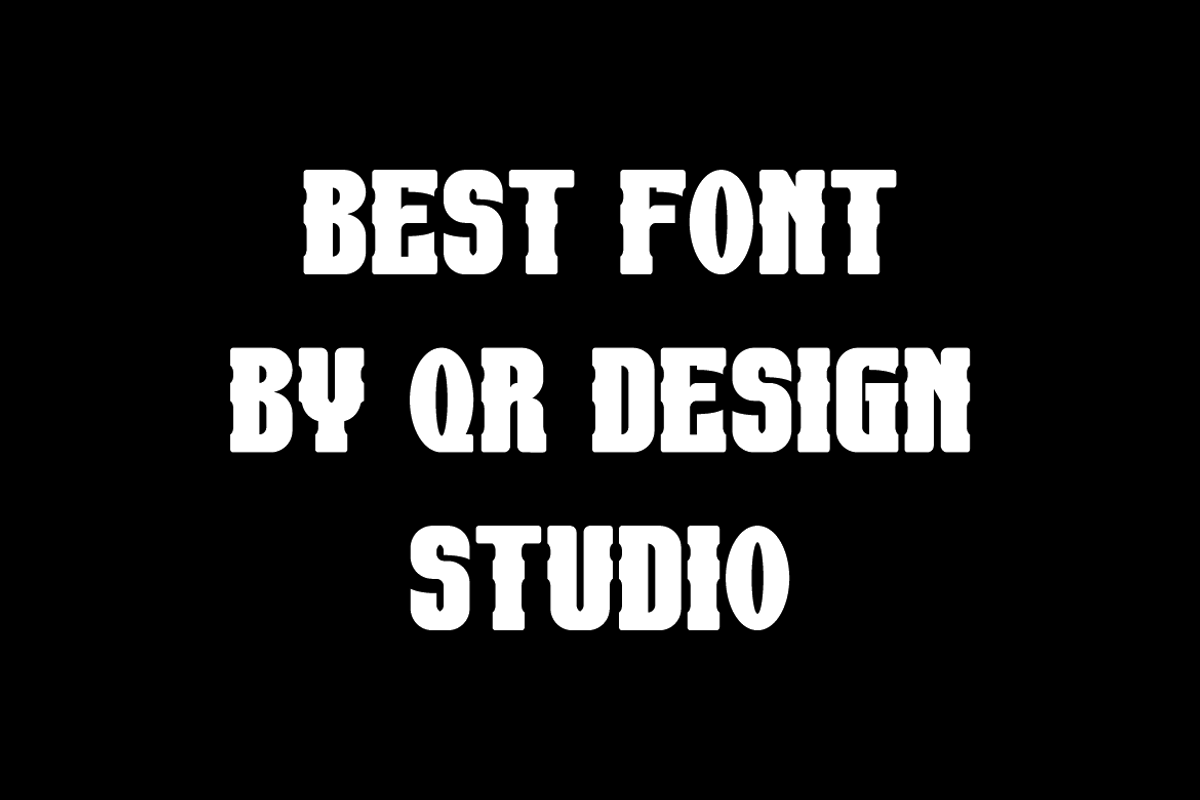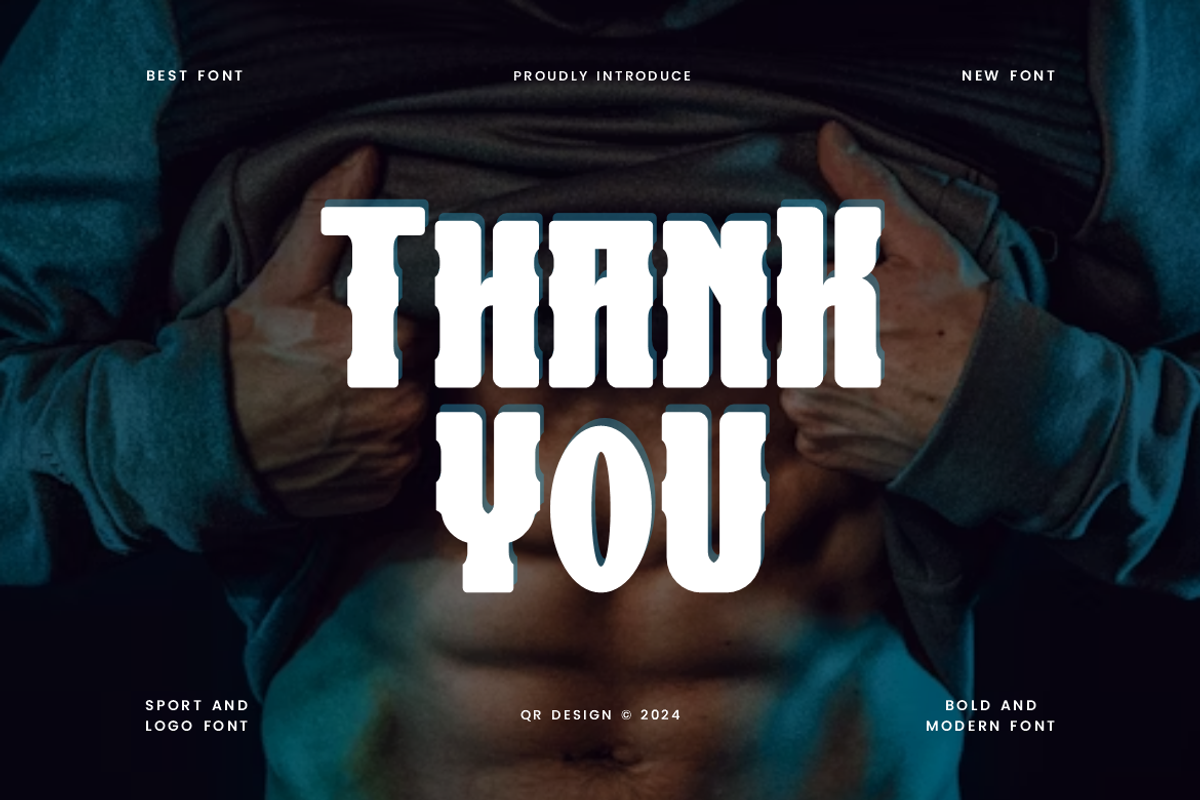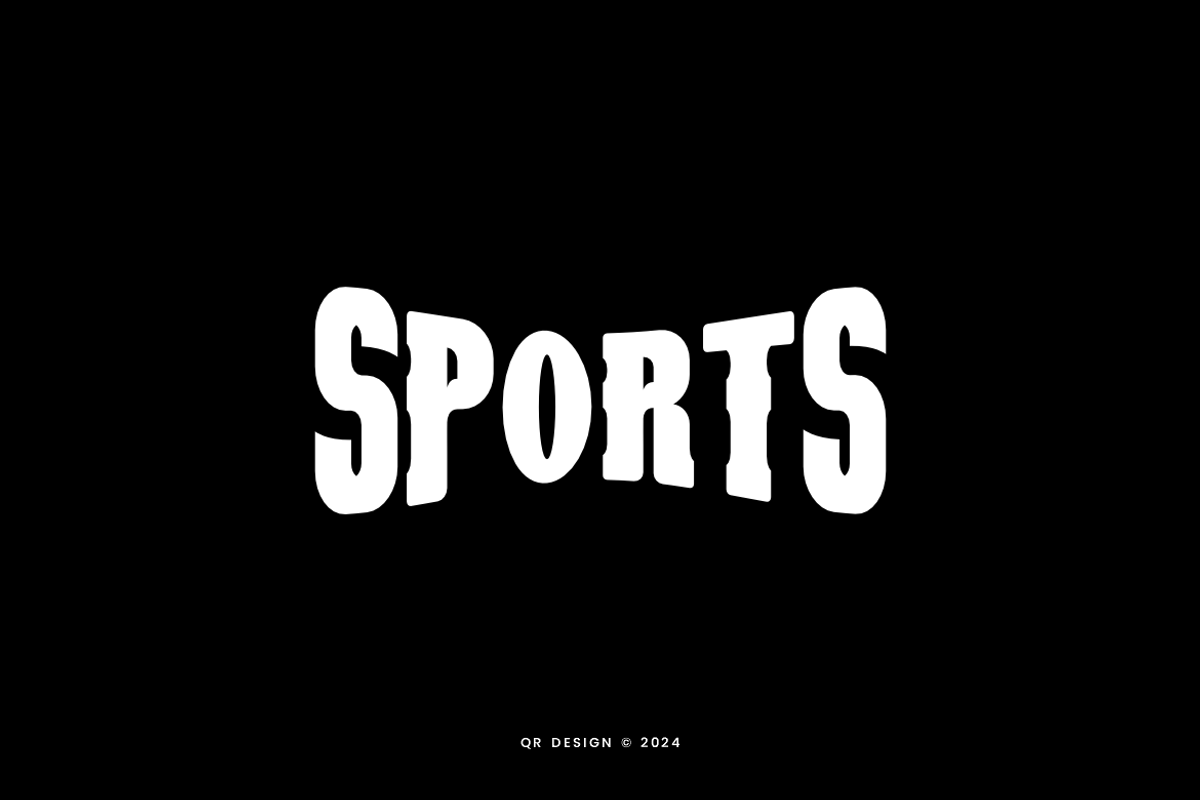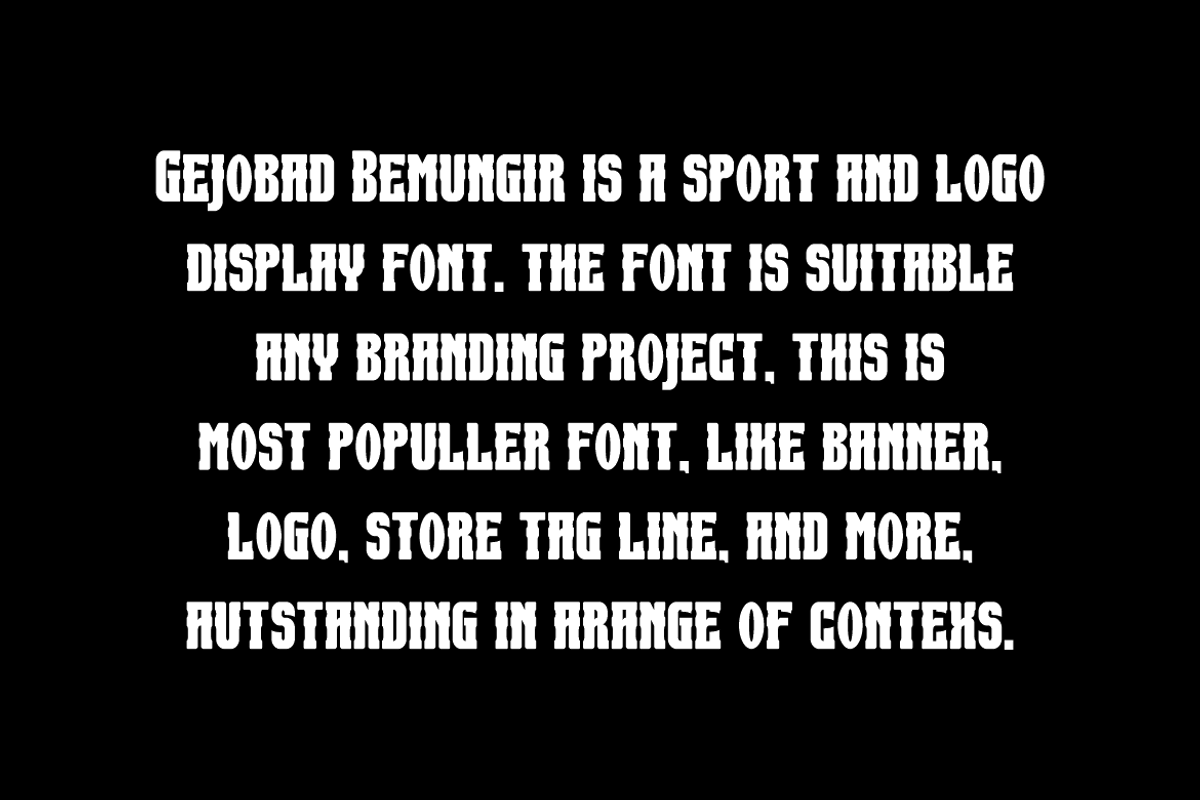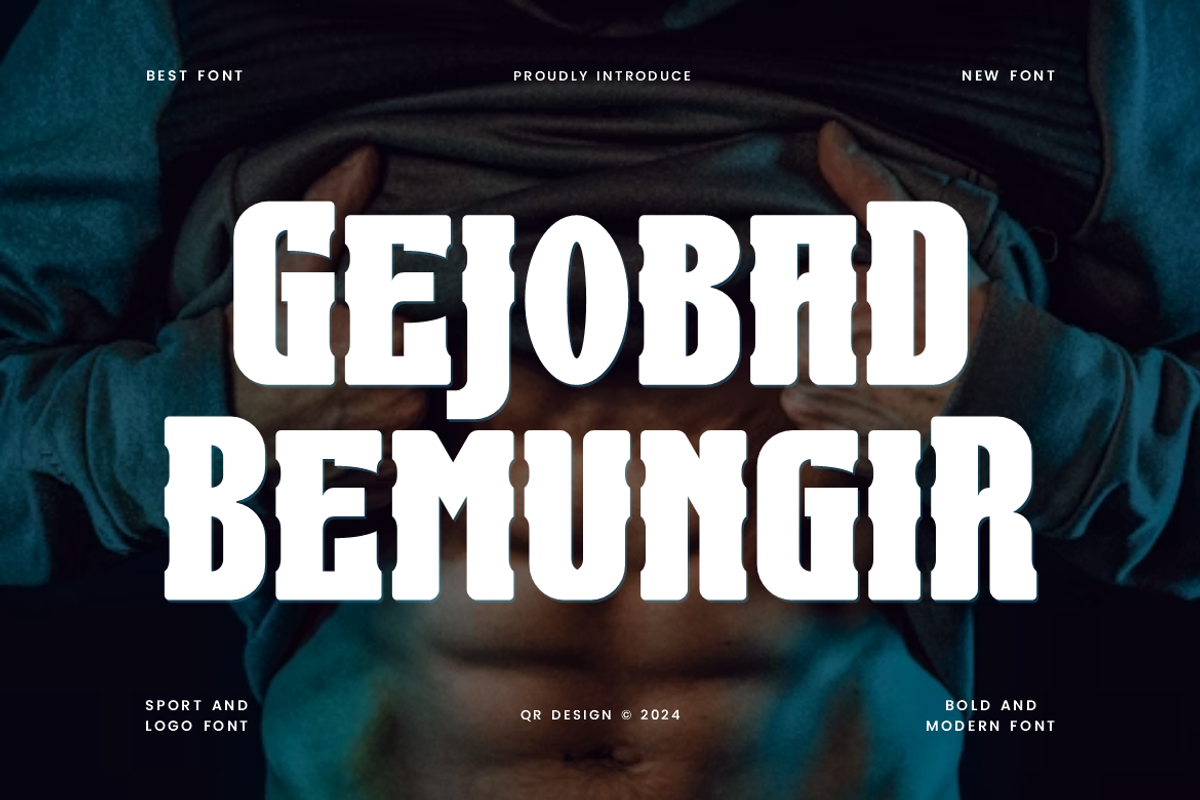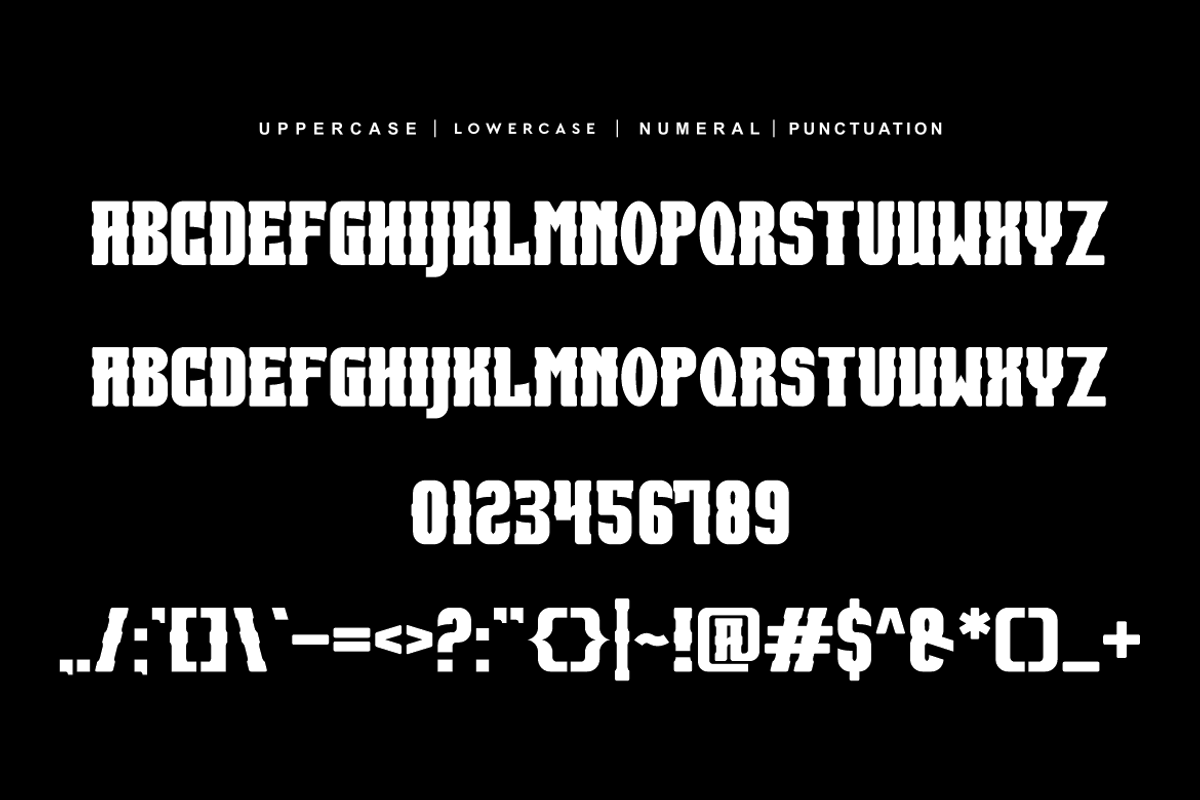
Gejobad Bemungir - Sport Athletics
Gejobad Bemungir Font is a bold and authentic display font. The font is suitable for any branding project like poster, logo, sport, and many more. Outstanding in a wide range of contexts.